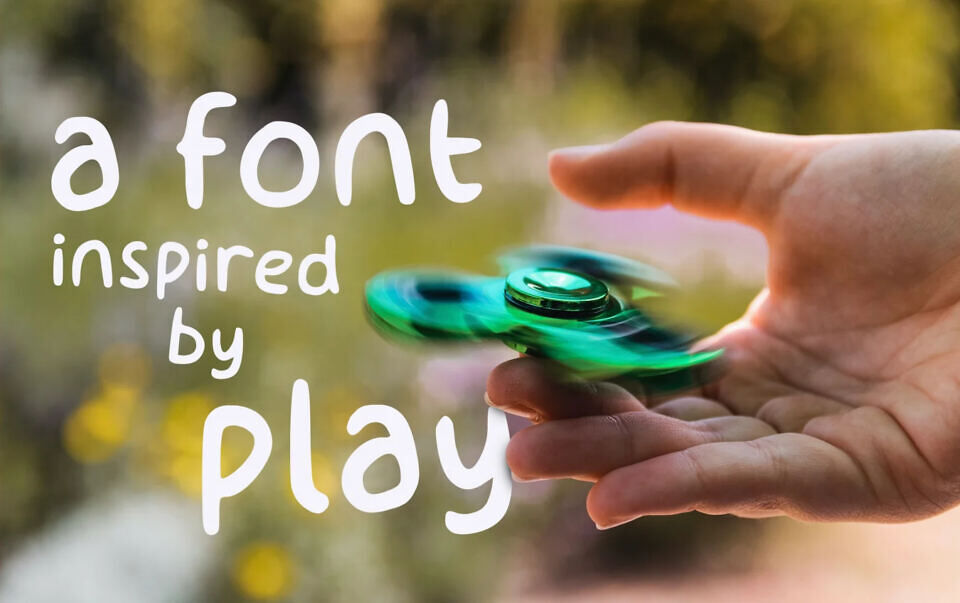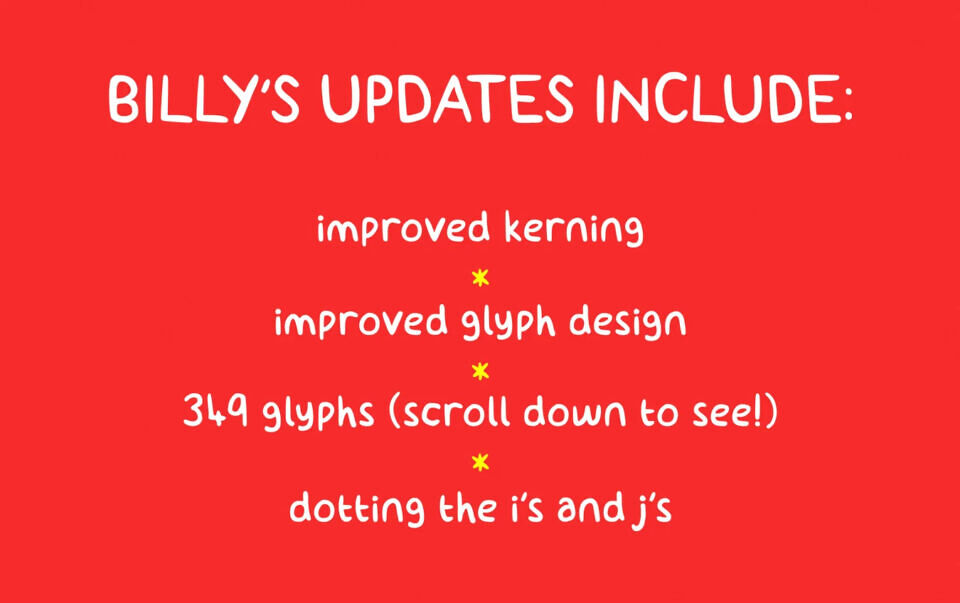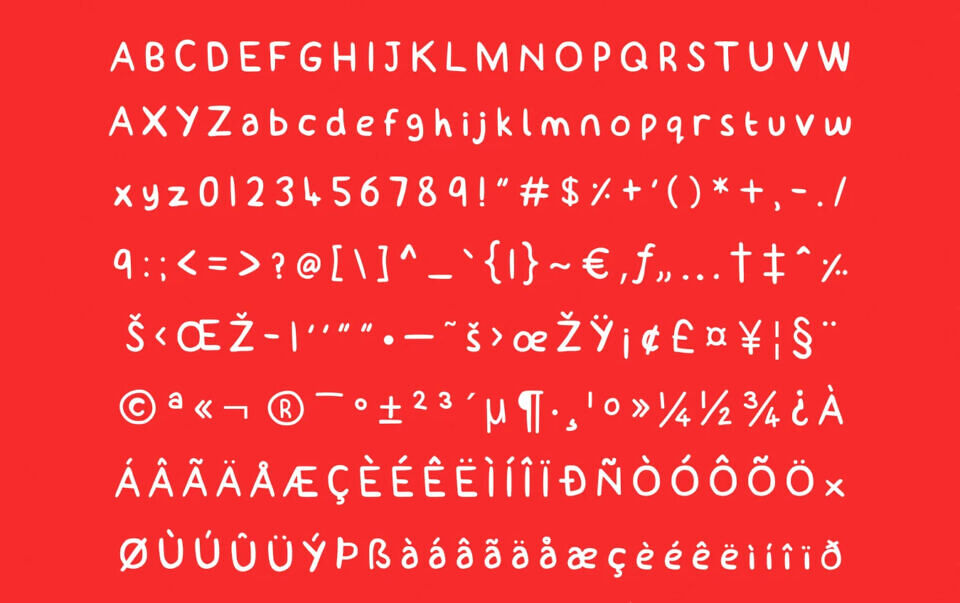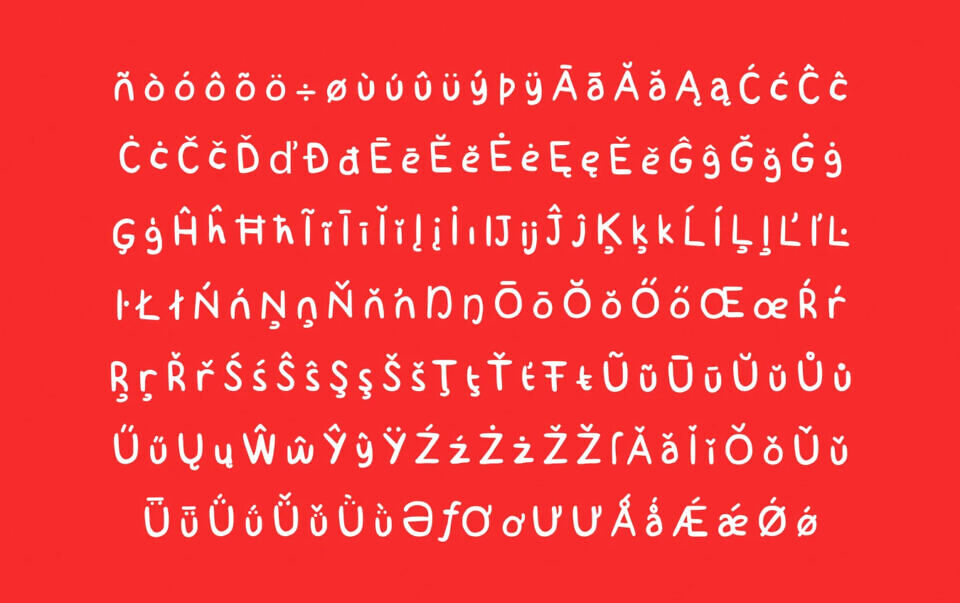
Billy 2.0 is a playful handwritten typeface by Claire Joines, updated from the original 2014 release. Its improved kerning, refined letterforms, and charming dotted i’s and j’s give every design a friendly, personal feel.
With 349 glyphs and support for Latin Supplement and Extended characters, Billy is a versatile choice for branding, posters, invitations, social graphics, packaging, and other creative projects.